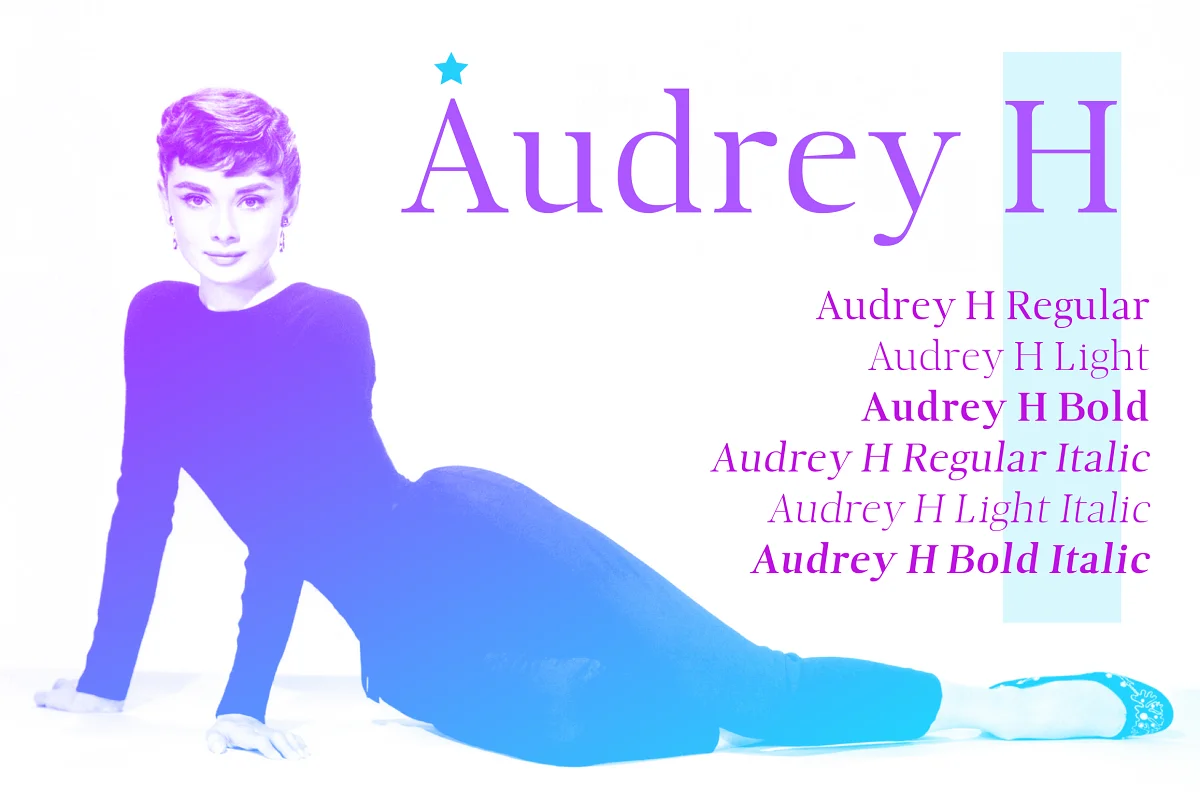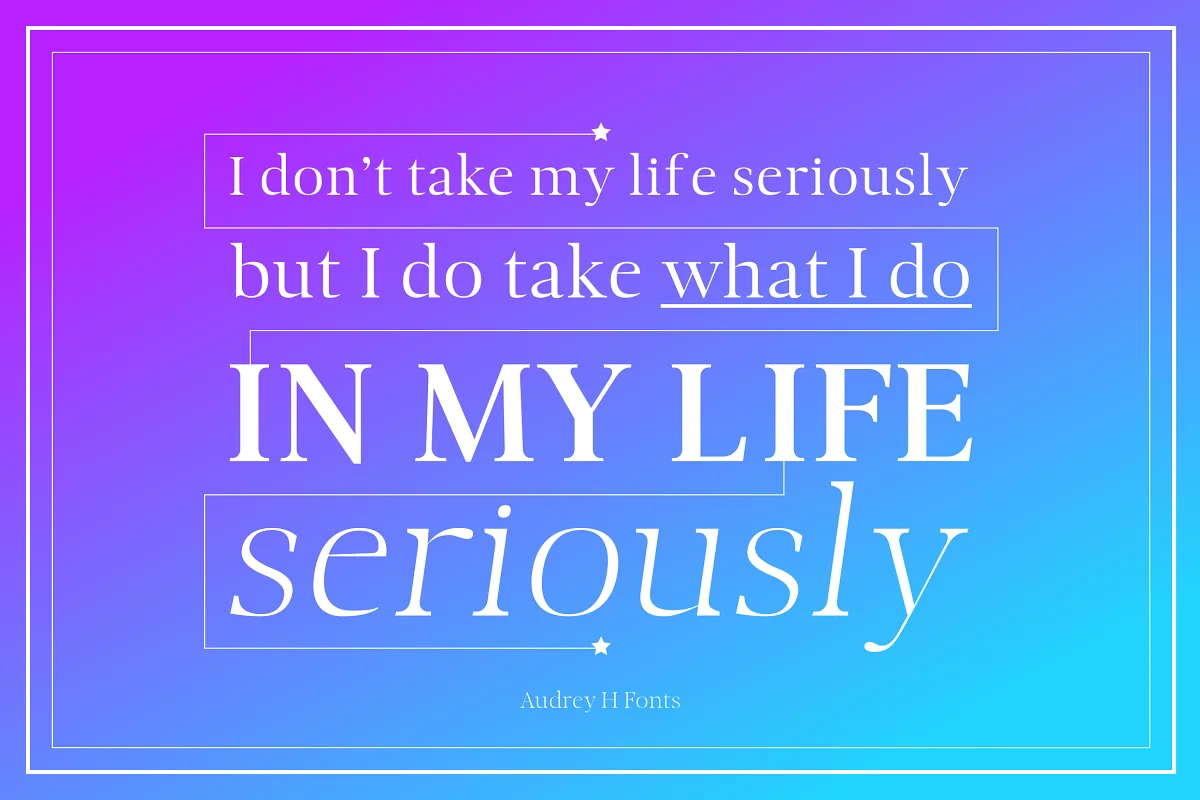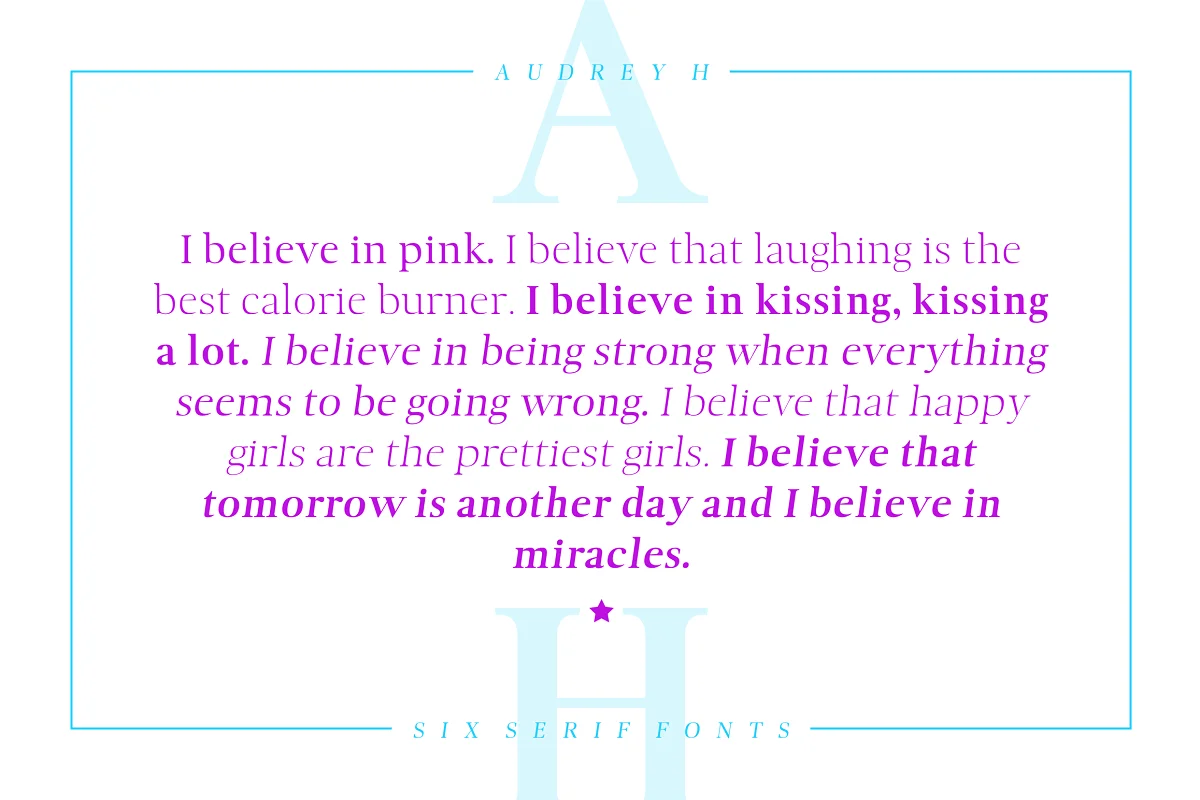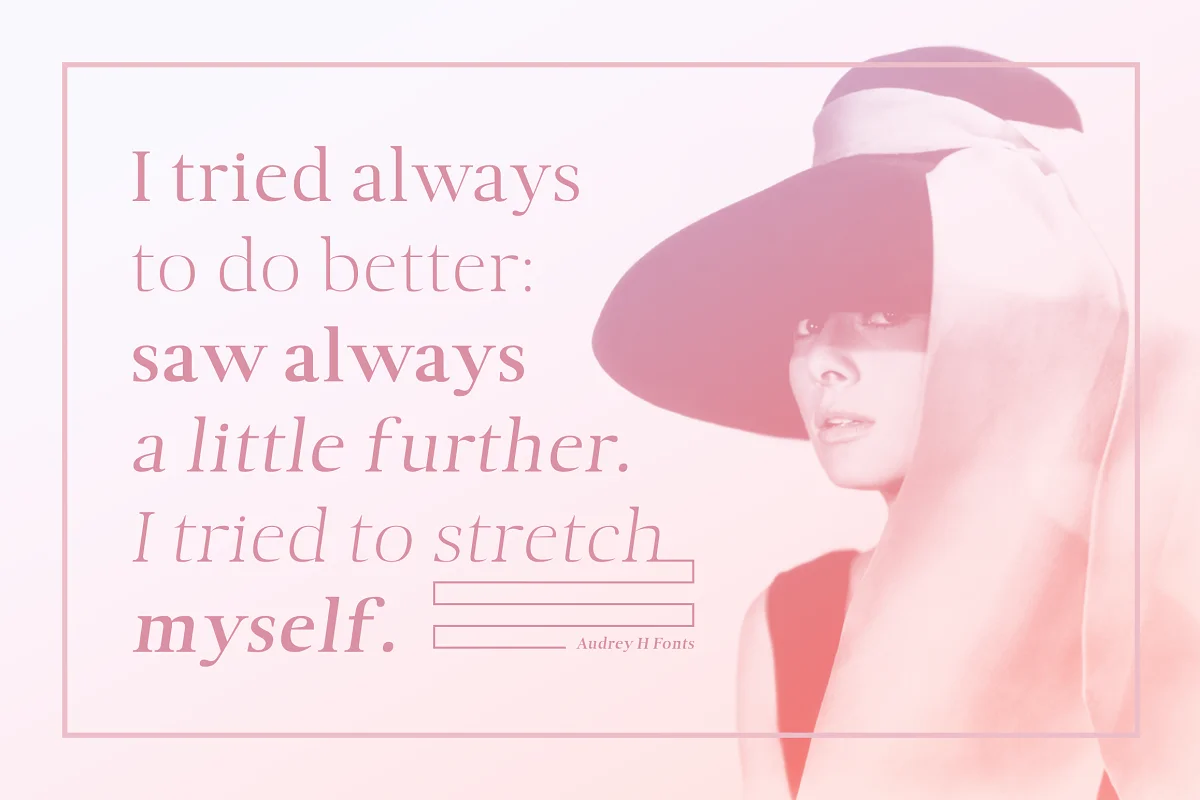
About the Audrey H Font
Audrey H Font is a serif font in 6 styles, made in tribute to the star Audrey Hepburn. They have been designed to transmit lightness and elegance, worthy of a big Hollywood star.
These different font styles are very versatile and can be used for letters, documents, prints, logos, posters, magazines, and other various uses in the field of graphics.
Send your finest messages with these fonts or create graphic designs of great inspiration to communicate all your charm and your poetry.